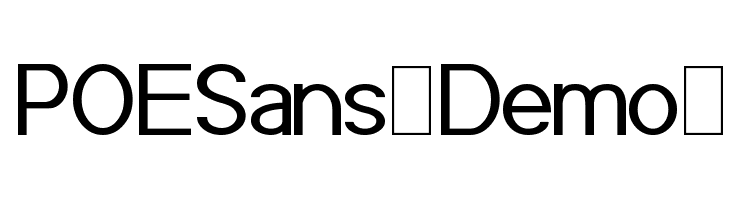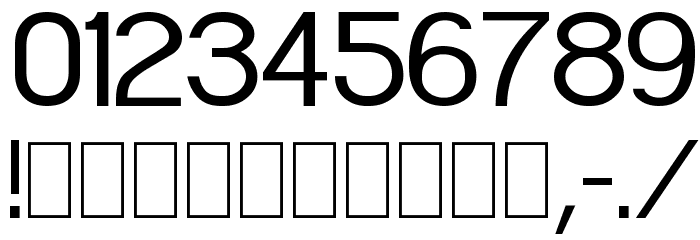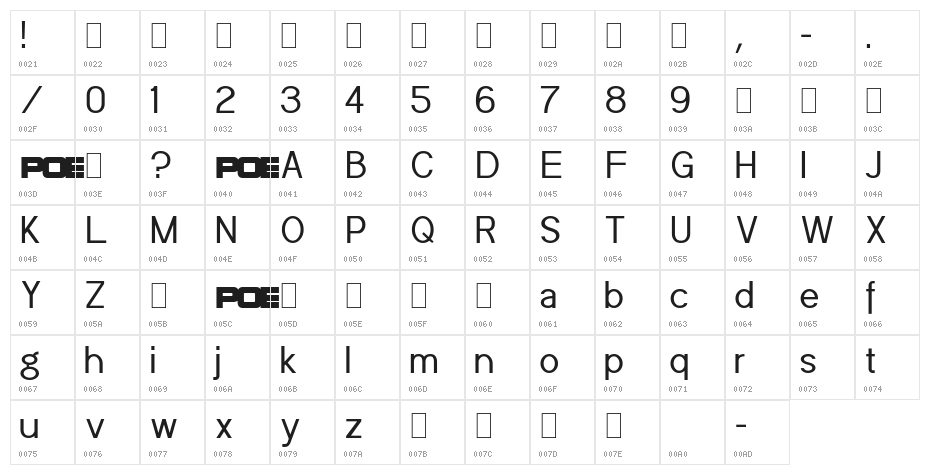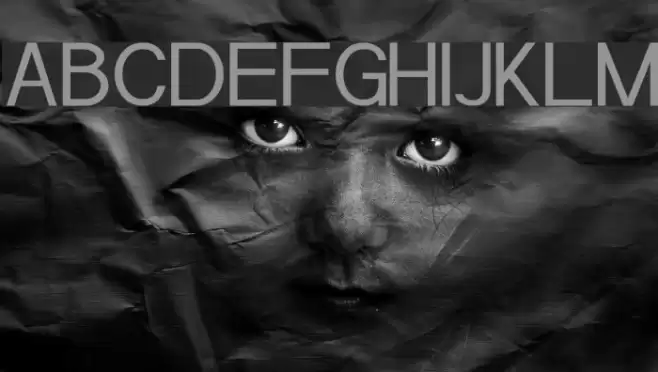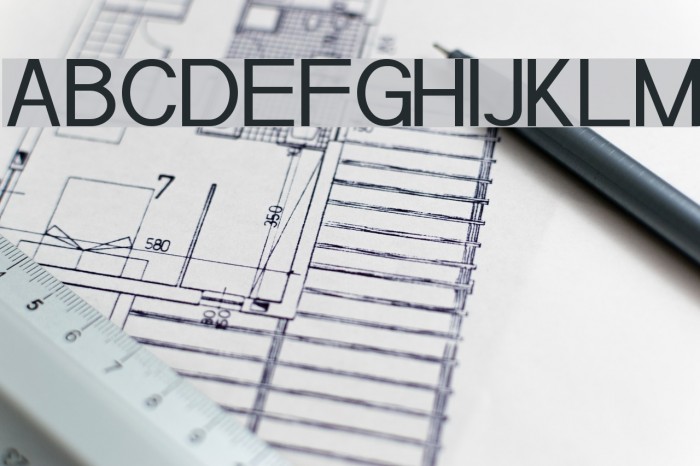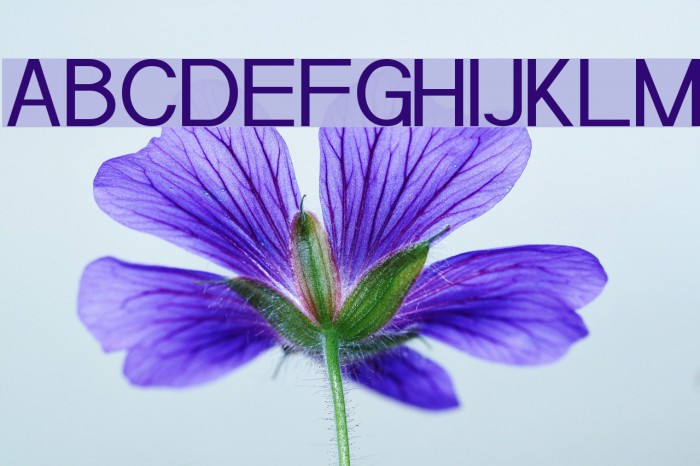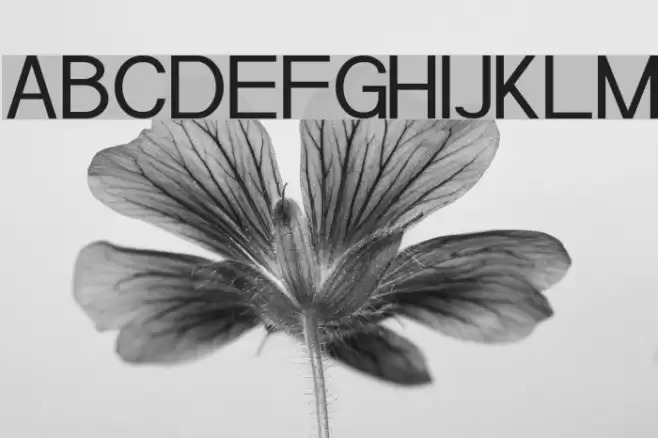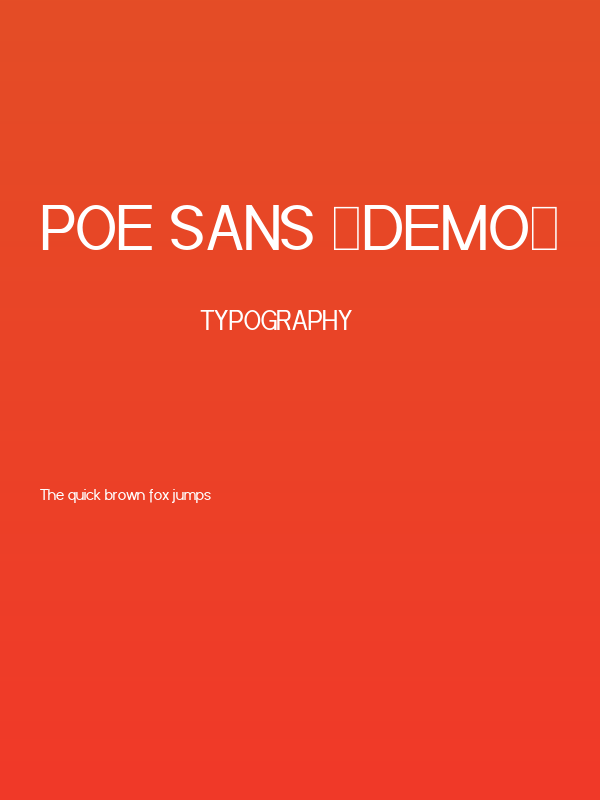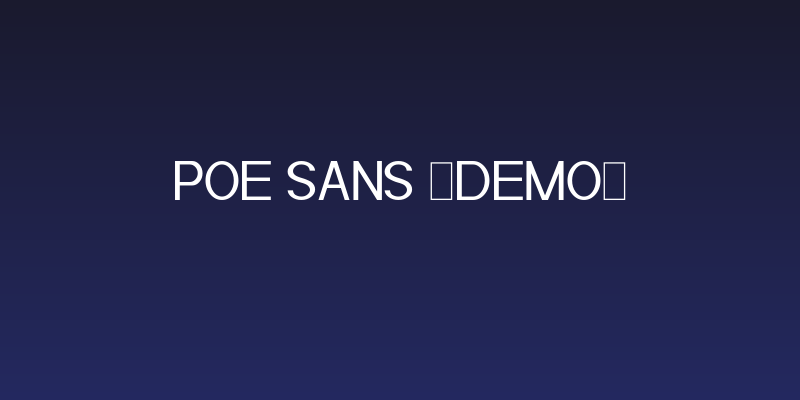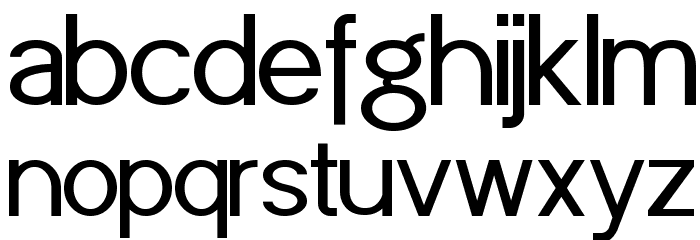
POE Sans (Demo) Font
POE Sans (Demo) Description
This font features a clean and modern sans-serif design, characterized by its geometric shapes and uniform stroke widths. The uppercase letters are bold and assertive, while the lowercase letters maintain a consistent and harmonious appearance. The numerals are clear and easily distinguishable, making them suitable for various applications. The special characters are well-defined, adding to the font's versatility. Overall, this font exudes a contemporary and professional vibe, ideal for digital and print media.